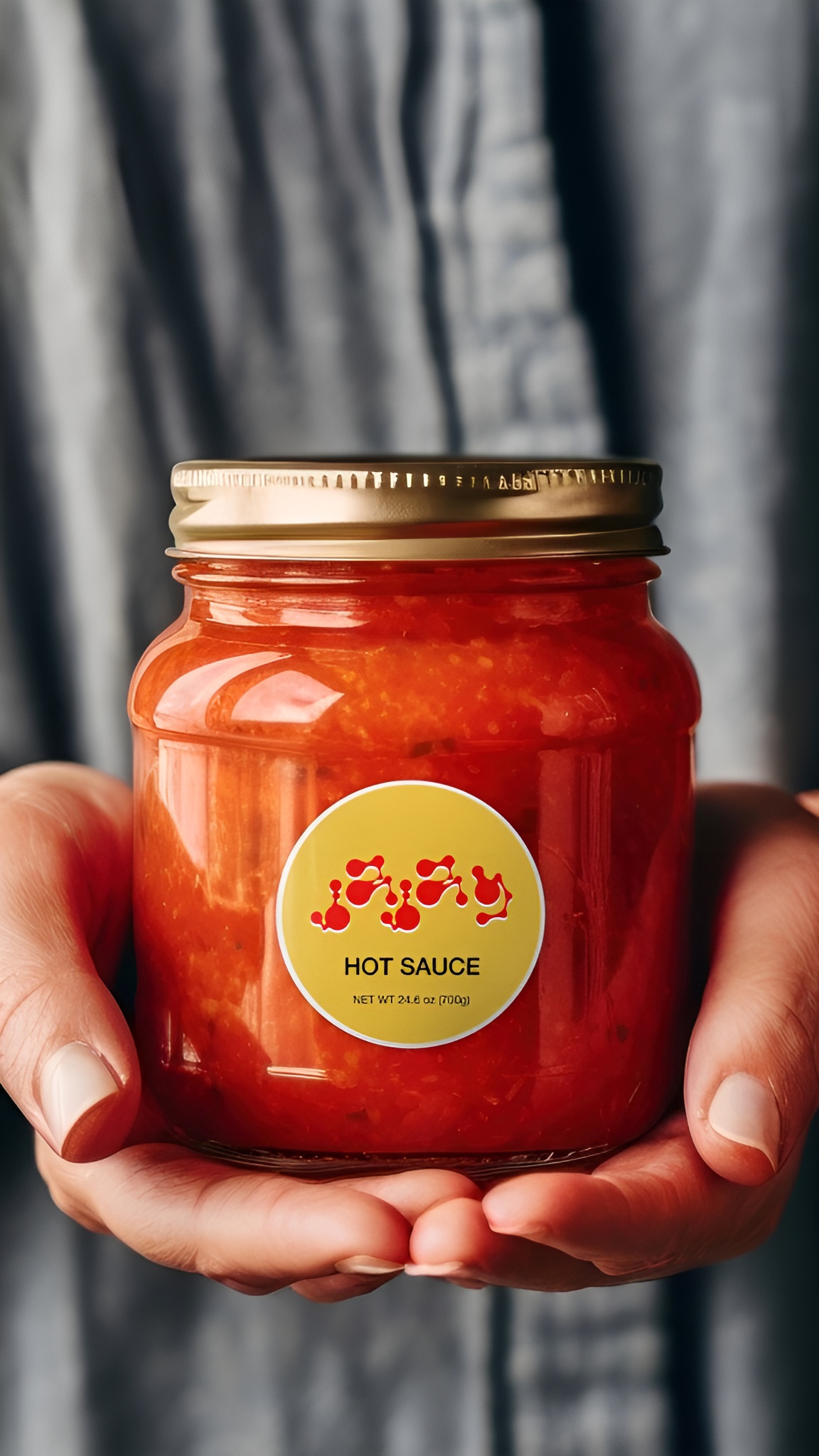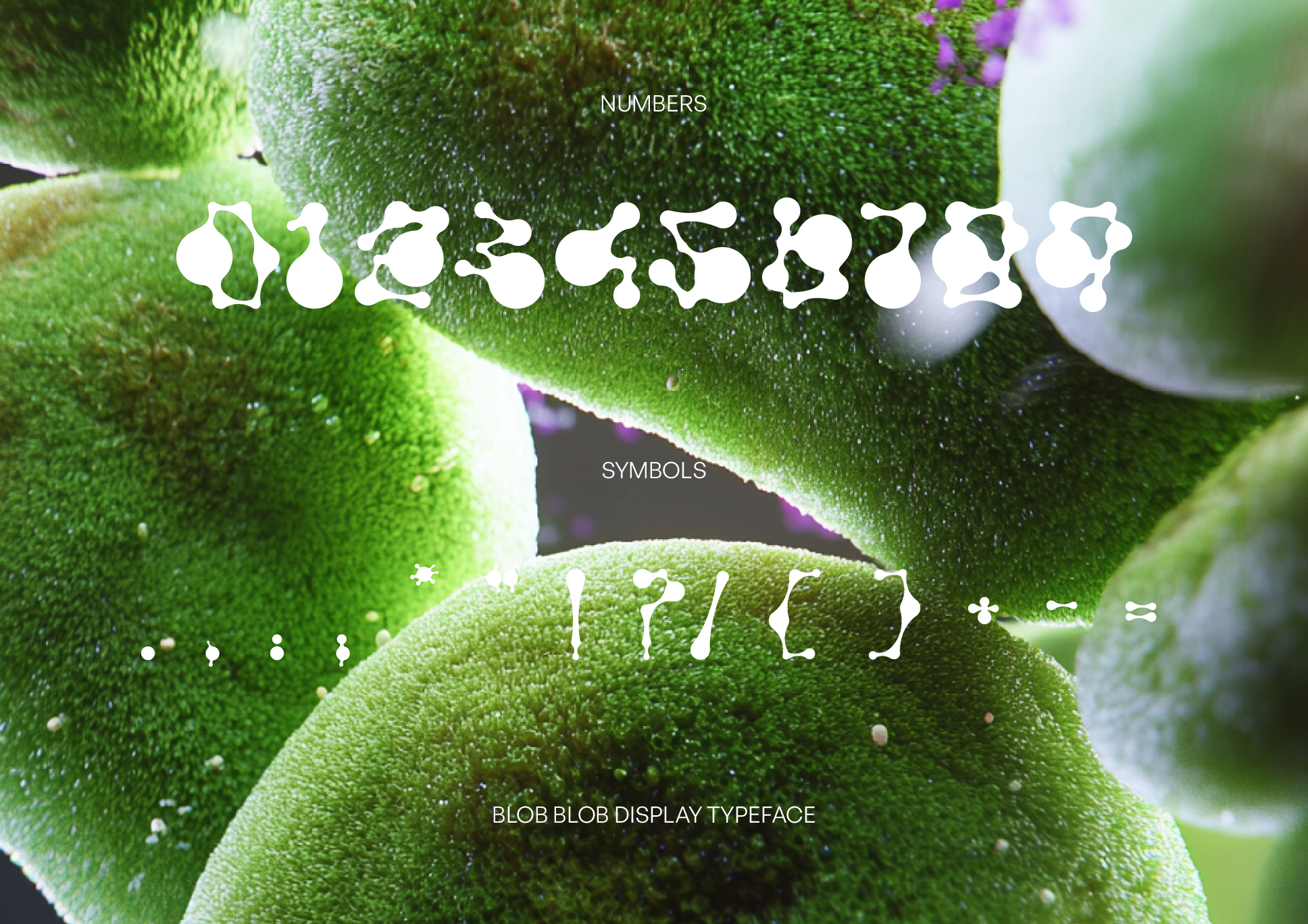
Blob Blob
Blob Blob is an expressive typeface that captures fluidity, irregularity, and digital biomorphic vibes. It’s playful and organic, suited for creative headlines, visual experiments, and typographic installations.